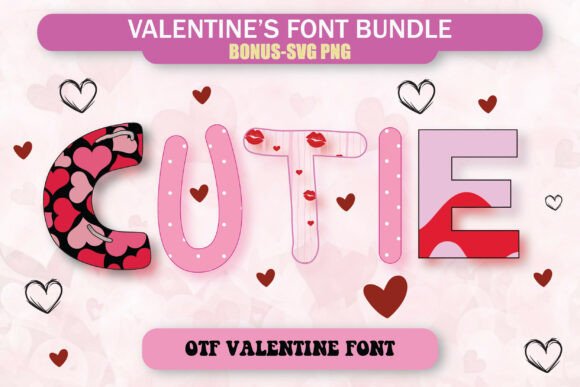
Berry & Valentine Font Bundle: A Sweet Addition to Your Design Collection
What’s Included in the Berry & Valentine Font Bundle?
The Berry & Valentine Font Bundle is a lovely collection of four adorable fonts that blend playful dotted lettering with soft and stylish Valentine themes. The bundle includes:
- Berry Dot Font – Fun and playful dotted-style lettering ✨
- Preppy Love Font – Trendy and stylish love-themed letters 💕
- Valentine Font – Classic Valentine style perfect for all love projects ❤️
- Valentine Love Font – Sweet and decorative romantic alphabet 💗
- 💕 The fonts are beautifully designed, with a perfect balance of playfulness and elegance.
The Design Inspiration Behind the Berry & Valentine Font Bundle